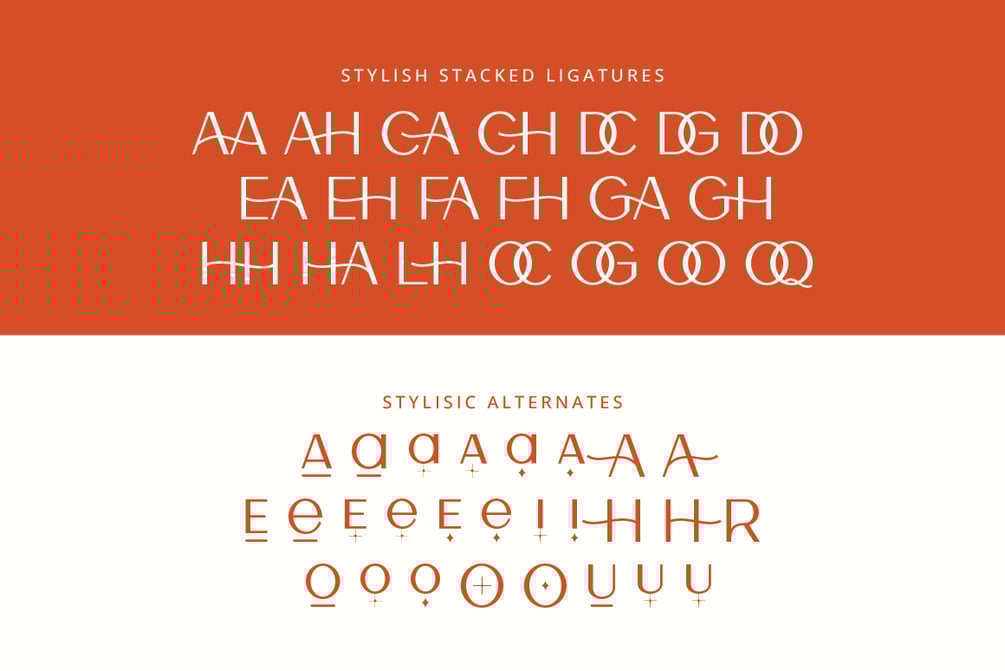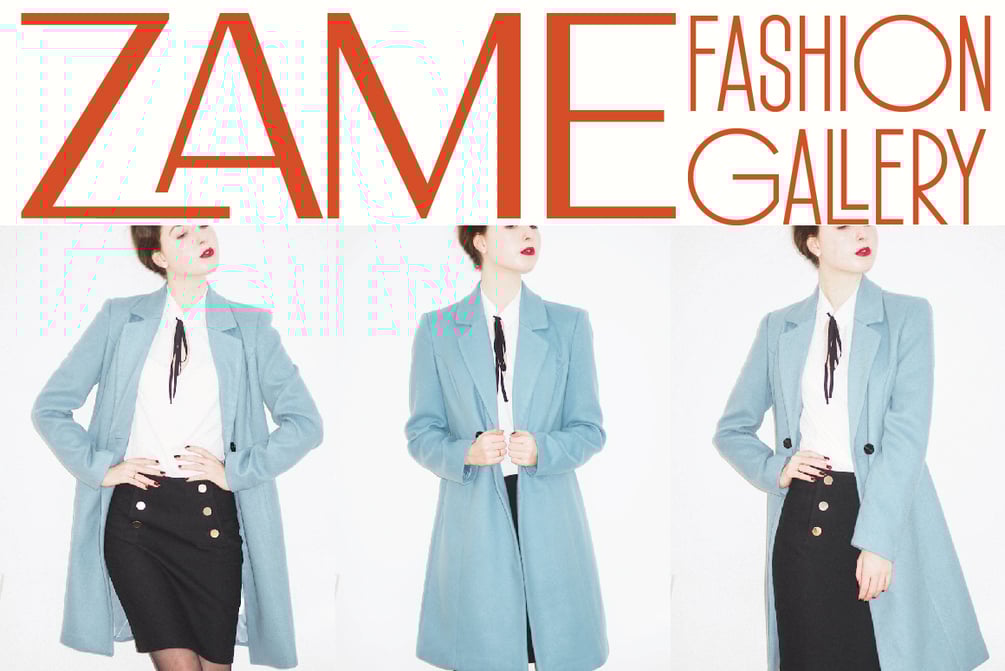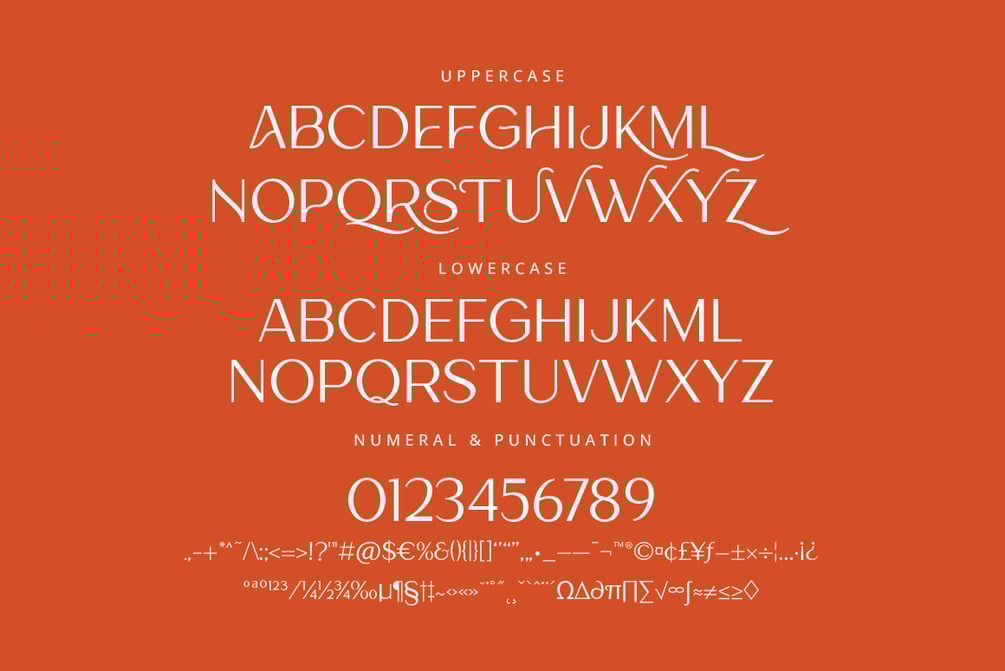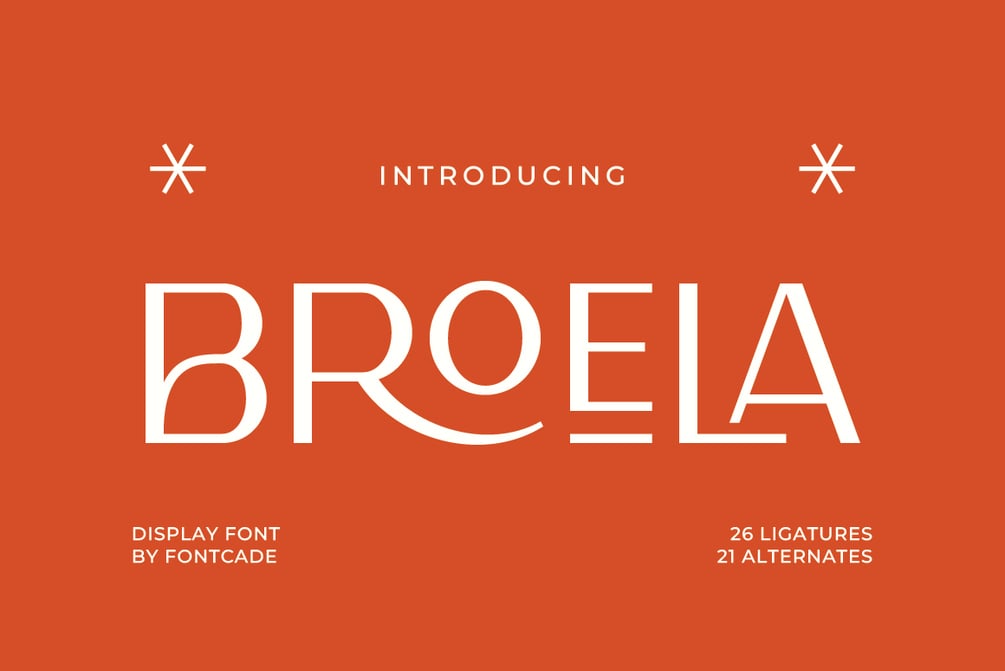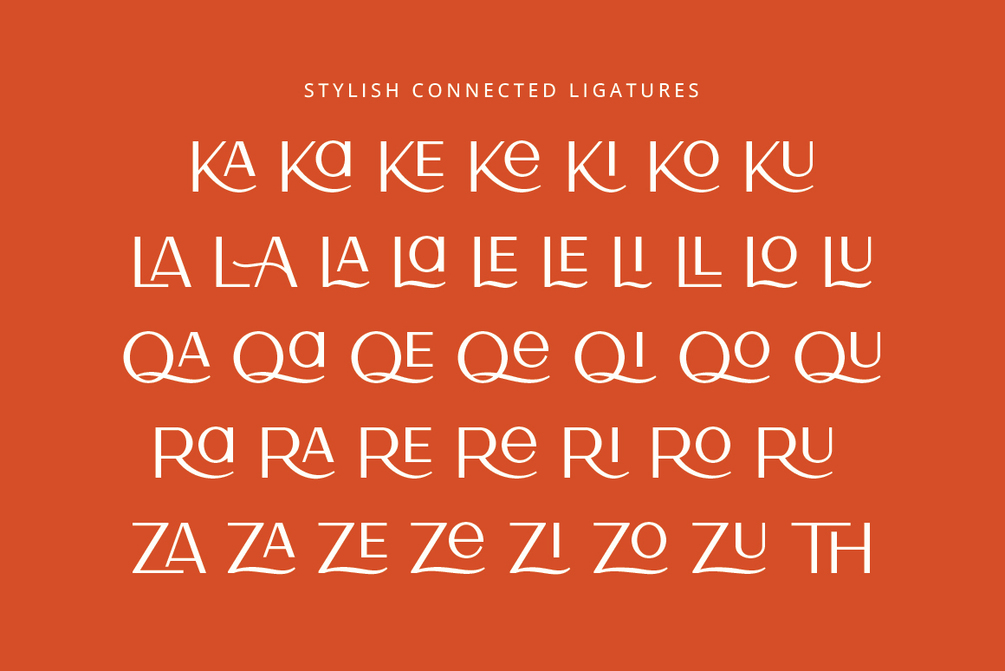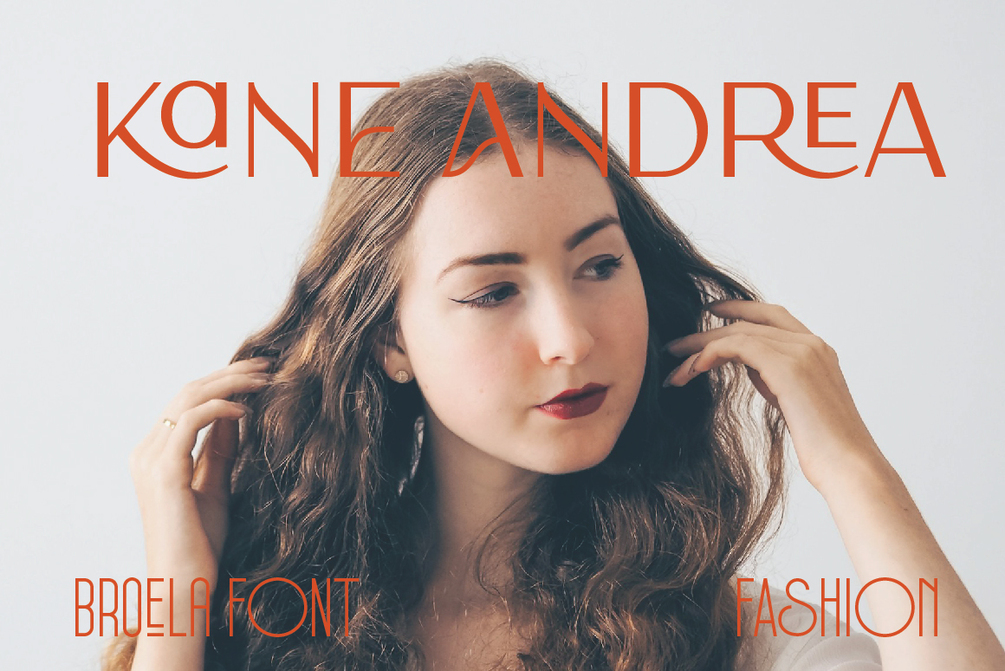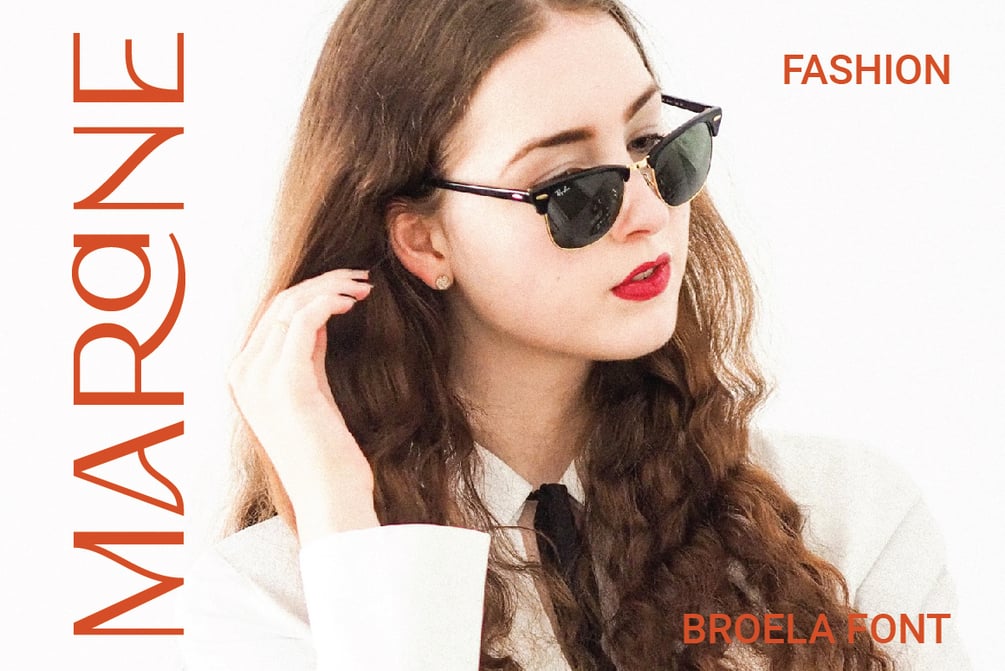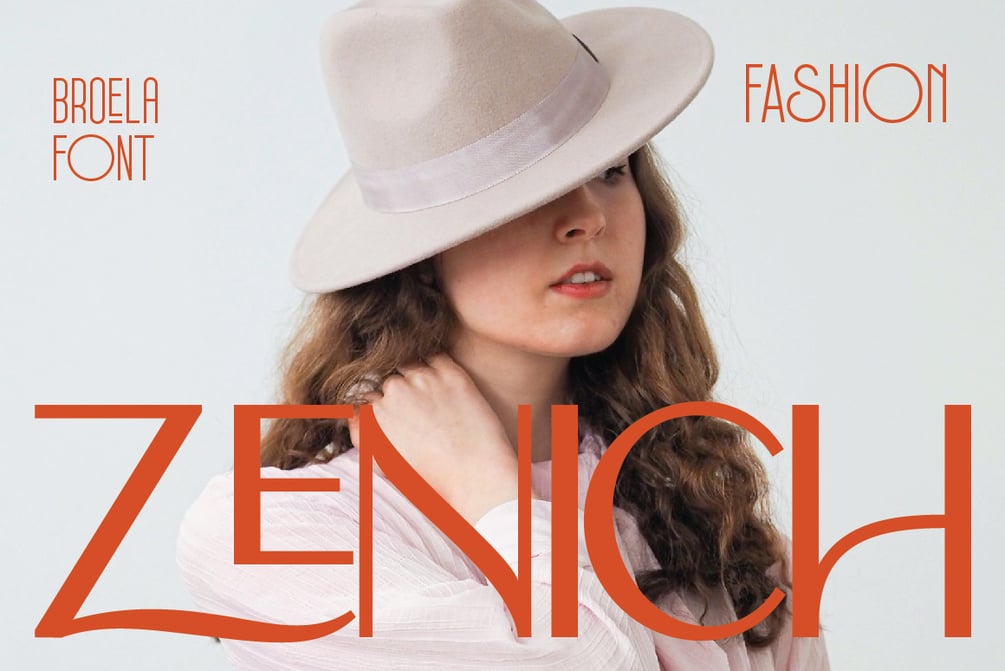
Broela Font
Broela is a luxury modern logo font designed with a refined touch to elevate any brand identity. It includes 59 stylish ligatures and 27 elegant stylistic alternates, giving you wide creative freedom to craft unique and sophisticated typography. With clean curves and graceful letterforms, Broela is perfect for high-end branding, fashion labels, editorial layouts, wedding invitations, and minimalist logos.
- Uppercase, Lowercase, Numeral & Punctuation
- 59 Ligatures & 27 Stylistic Alternates